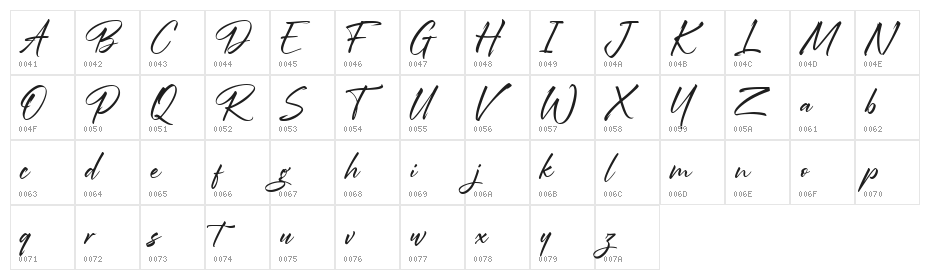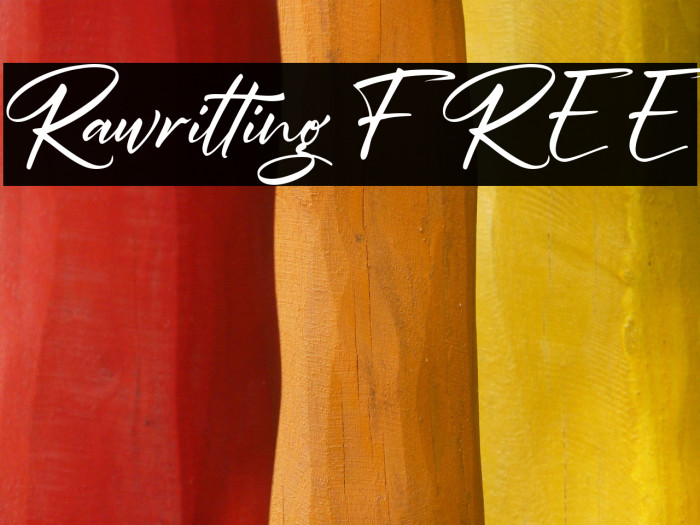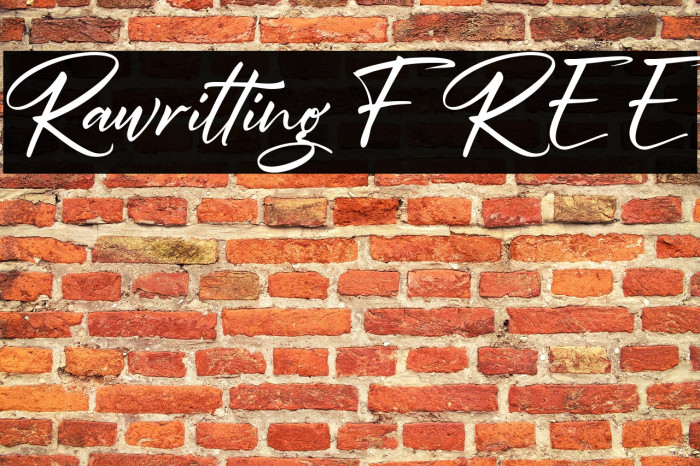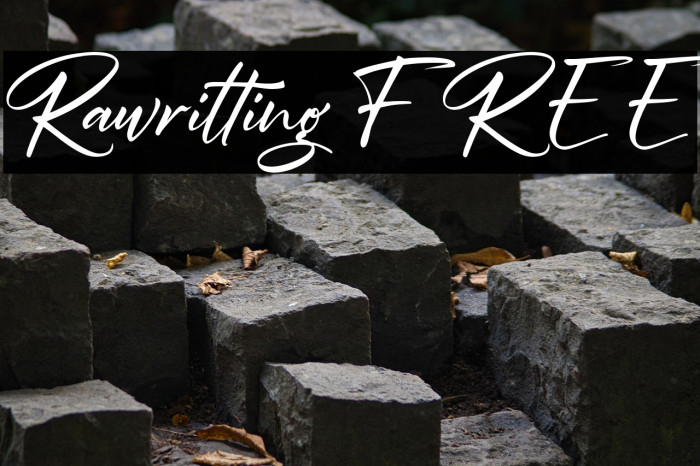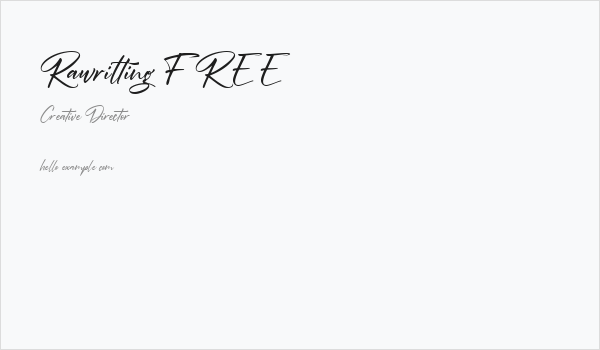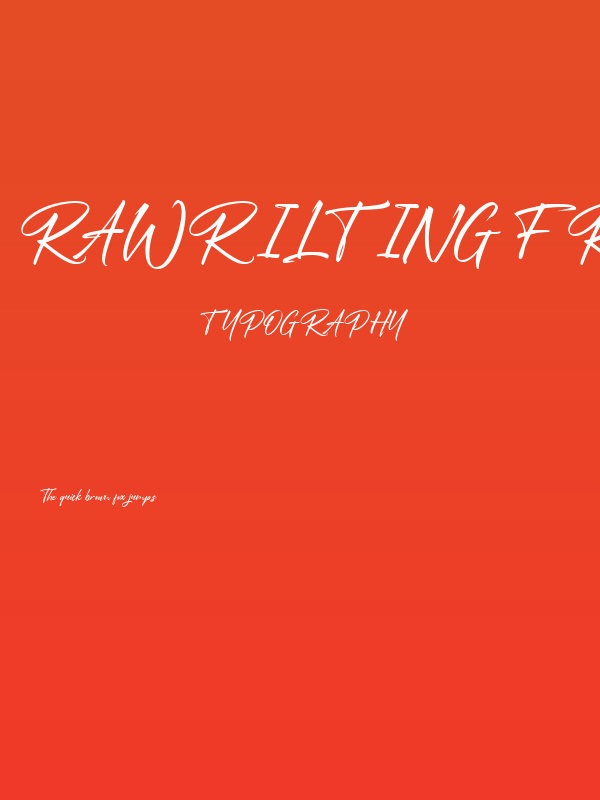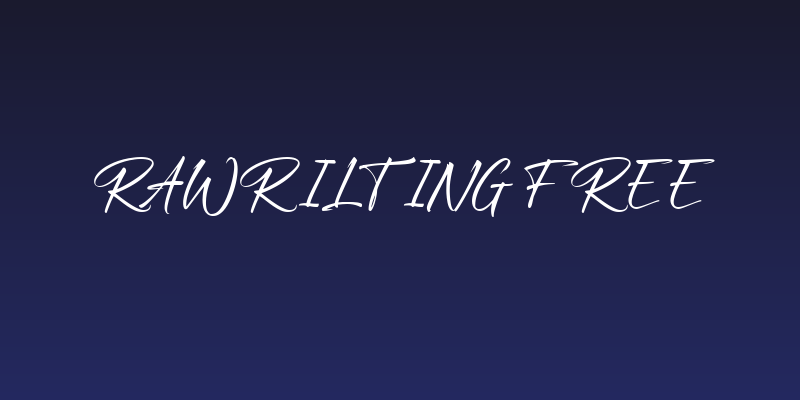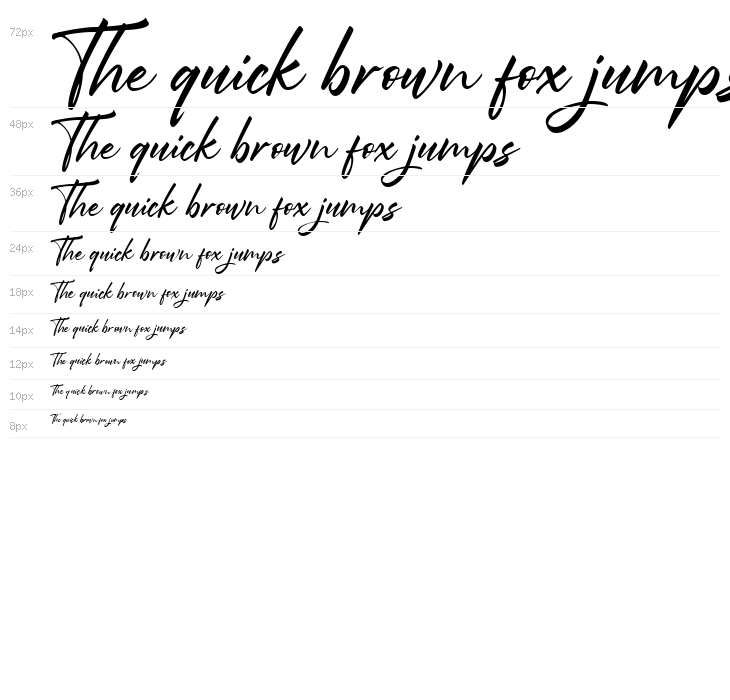
Rawrilting FREE Font
Rawrilting FREE Description
This font features an elegant and flowing script style with a handwritten appearance. The uppercase letters are slightly slanted, adding a dynamic feel, while the lowercase letters maintain a consistent fluidity. The strokes are smooth and connected, giving it a cohesive look. The font has a moderate contrast between thick and thin strokes, enhancing its readability and aesthetic appeal. It is suitable for projects that require a personal touch, such as invitations, greeting cards, and branding materials. The overall design is modern yet timeless, making it versatile for various applications.
| Proposed Projects | Ideal for invitations, greeting cards, branding, and personal projects. |